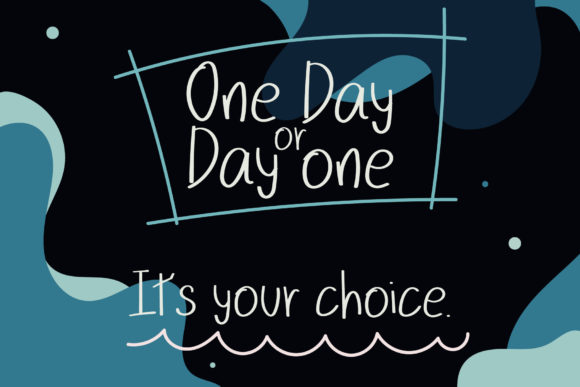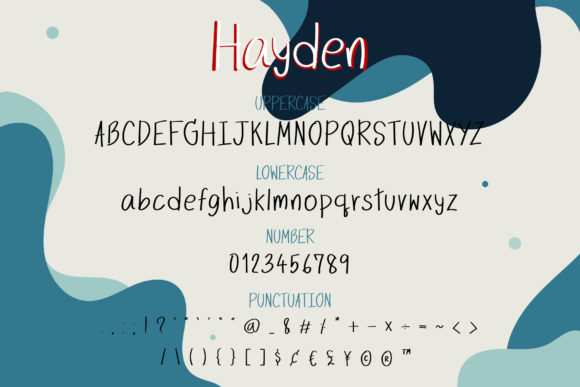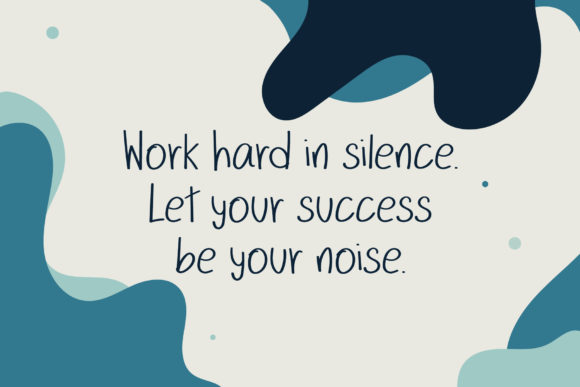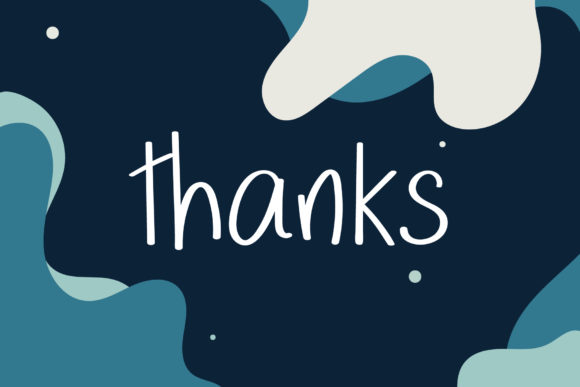
Introduction to Hayden Font
Hayden is a cute handwritten font, carefully handcrafted to become a true favorite.
This font will look outstanding in any context, whether itโs being used on busy backgrounds or as a standalone headline .
Key Features of Hayden Font